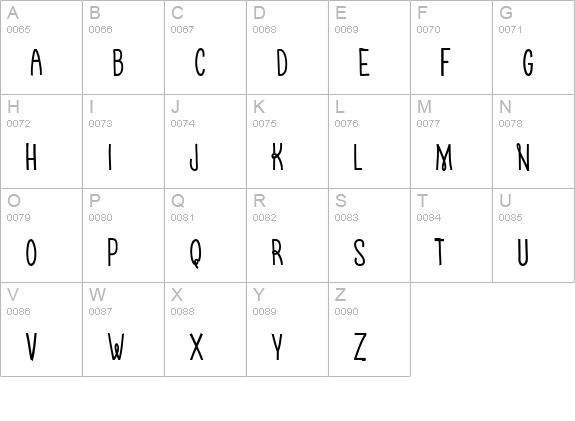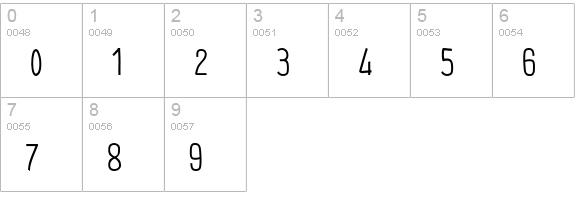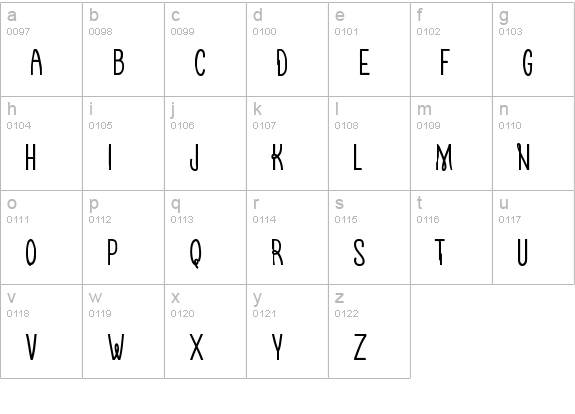
Myosotis Font Details
Myosotis font is a stunning and elegant typeface that exudes sophistication and charm. With its delicate curves and graceful letterforms, this font is perfect for adding a touch of class to any design project. Whether you're working on a wedding invitation, branding materials, or any other creative endeavor, Myosotis font will surely elevate your work to the next level. The best part about Myosotis font is that it is completely free to download! You can easily access this beautiful typeface at FontsMarket.com and start using it in your projects right away. Don't miss out on the opportunity to enhance your designs with the timeless beauty of Myosotis font. Download it now and let your creativity shine!